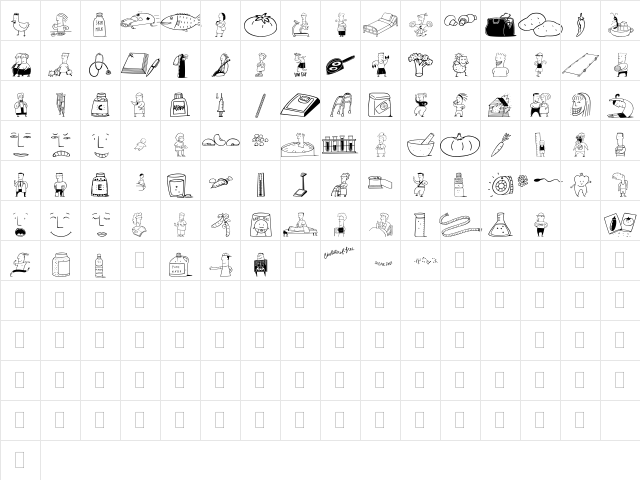
DF Well Beings Regular
| Foundry | International Typeface Corporation |
| Designer | Tuko Fujisaki |
Design Context for DF Well Beings Typeface
DF Well Beings is a composed and adaptable typeface that performs quietly and consistently across a wide range of design contexts.